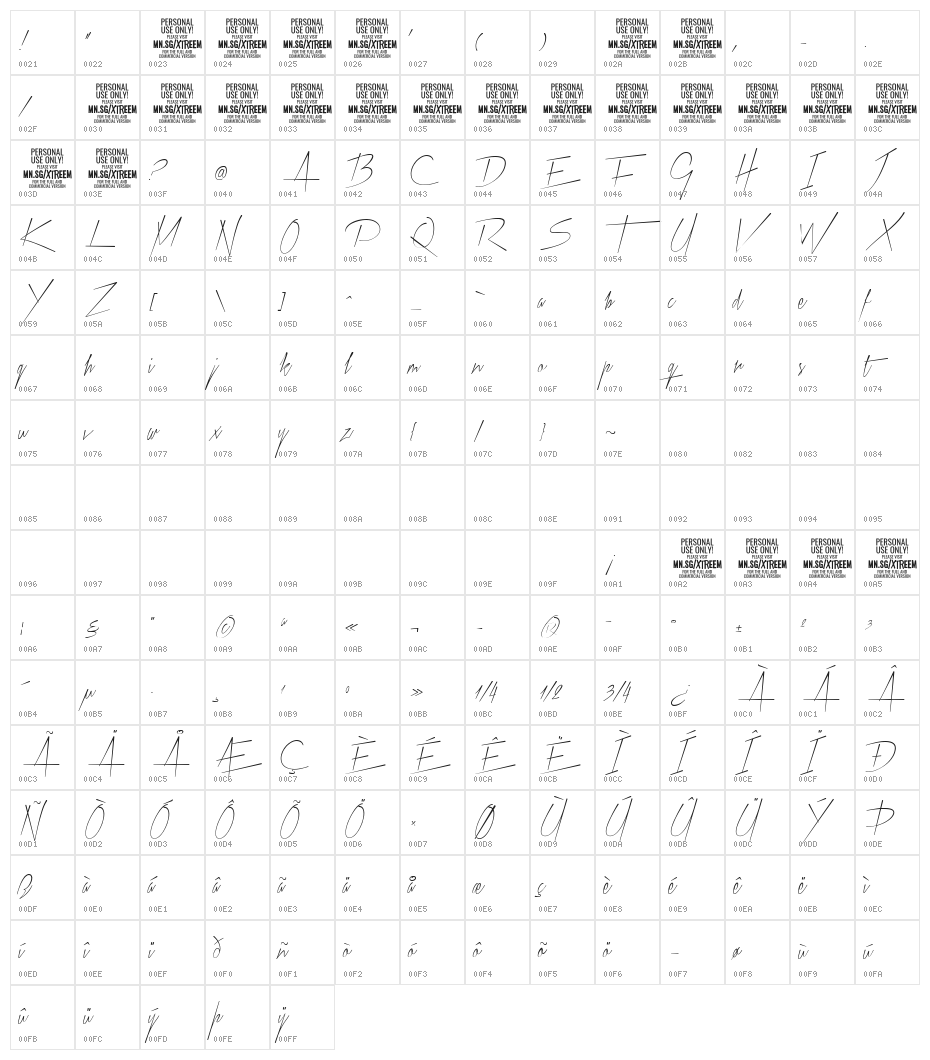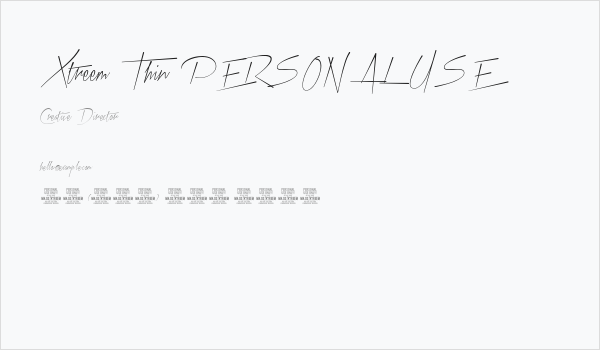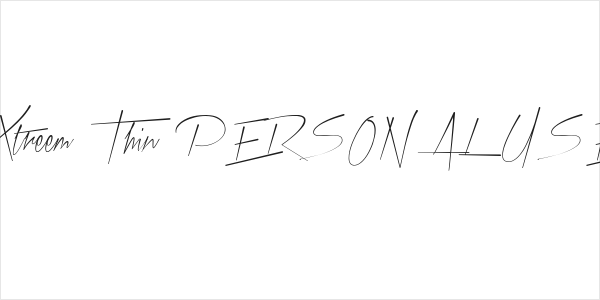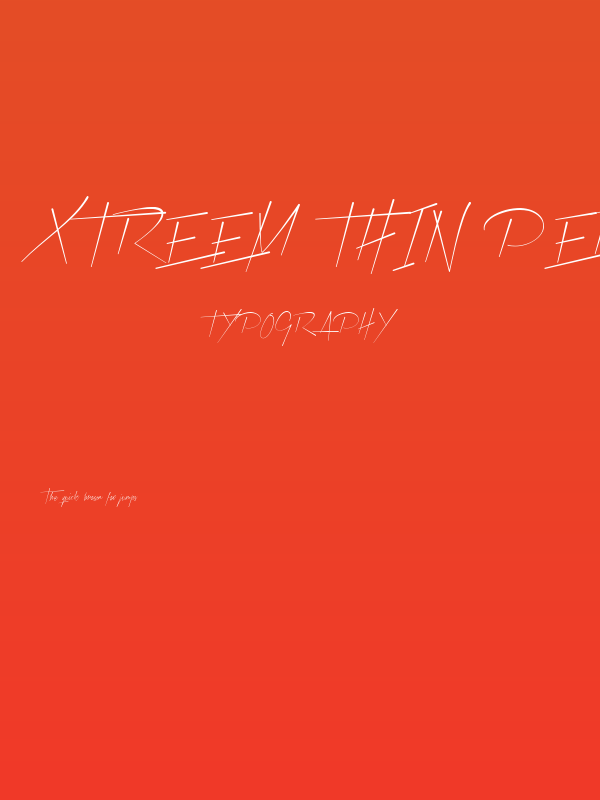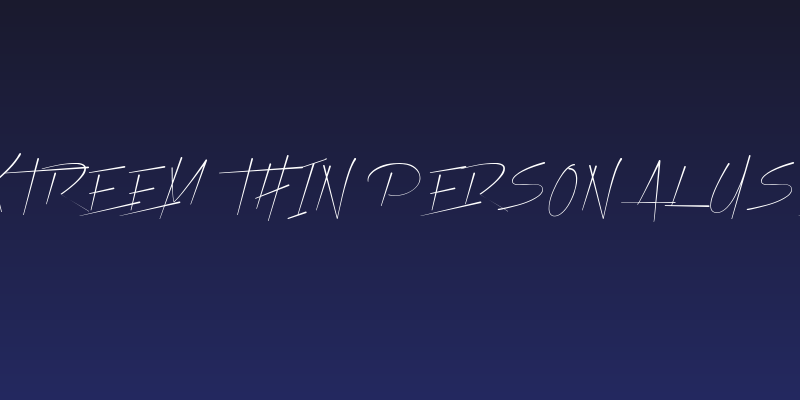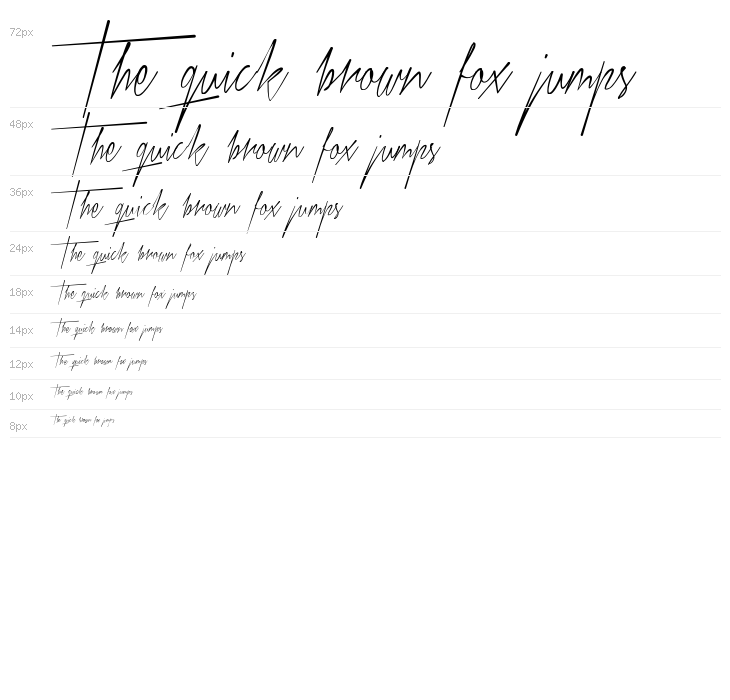
Xtreem Thin PERSONAL USE Font
Xtreem Thin PERSONAL USE Description
This font features a dynamic and expressive style with elongated, thin strokes that convey a sense of elegance and modernity. The uppercase letters are characterized by their angular, slightly slanted forms, while the lowercase letters exhibit a more fluid, cursive-like appearance. The overall design is sleek and sophisticated, making it suitable for creative and artistic projects. The font's thin lines and high contrast between thick and thin strokes add a touch of delicacy and refinement. Its unique style is perfect for making a statement in design work.
| Proposed Projects | Ideal for fashion branding, artistic posters, invitations, and modern editorial design. |